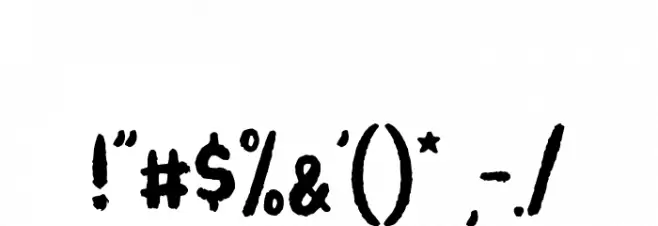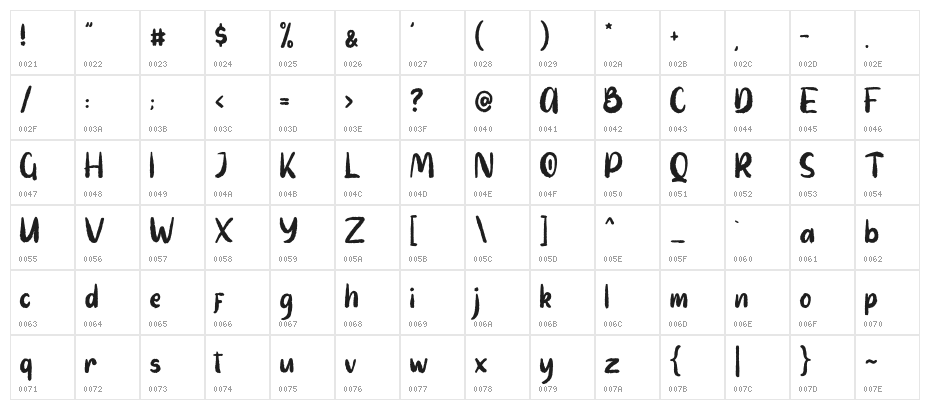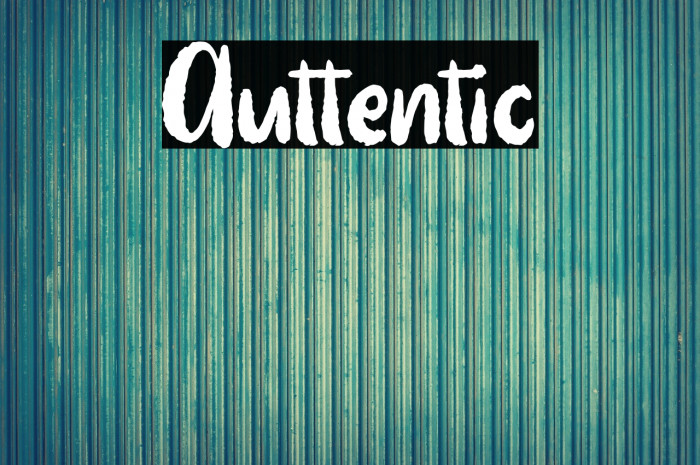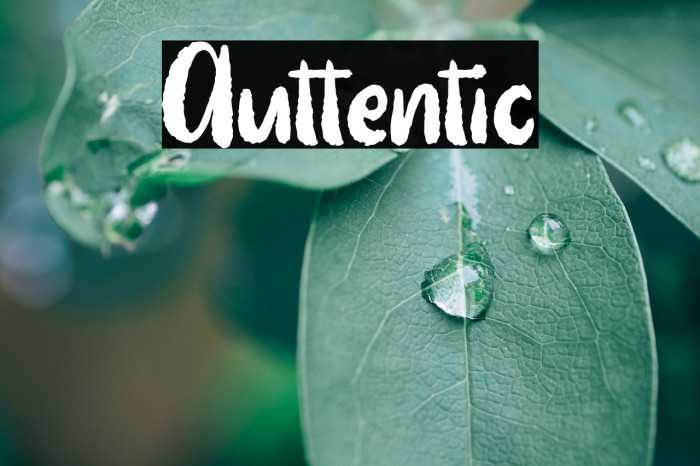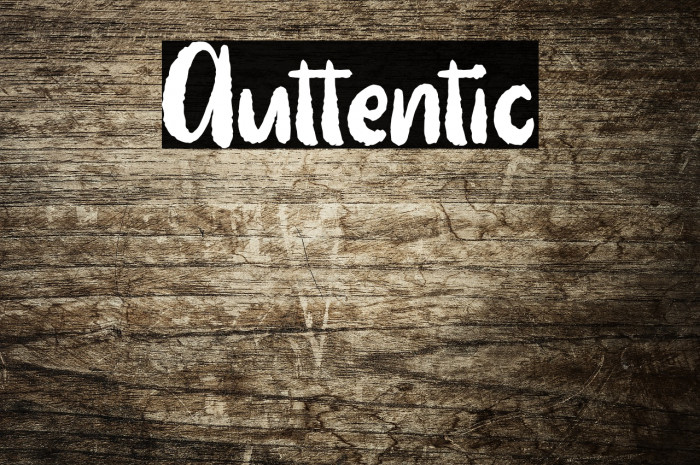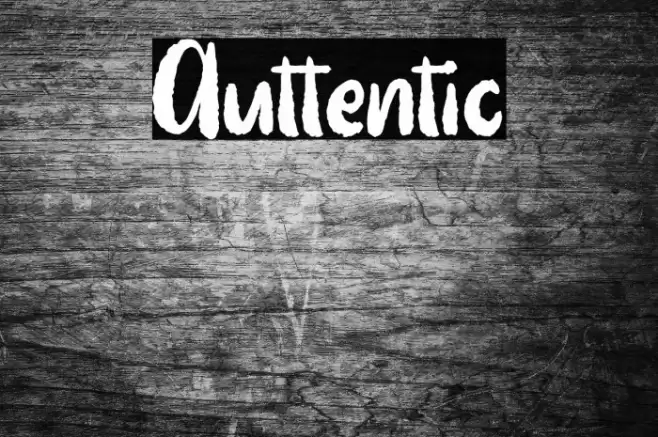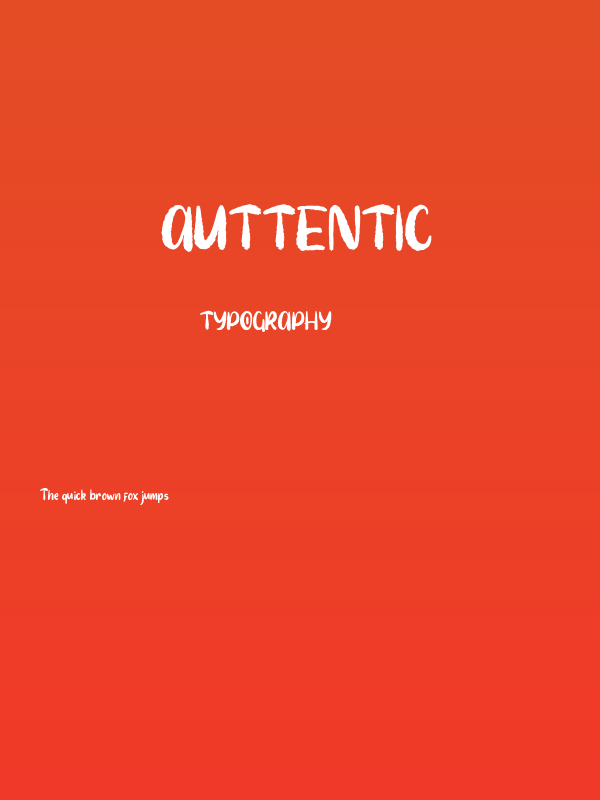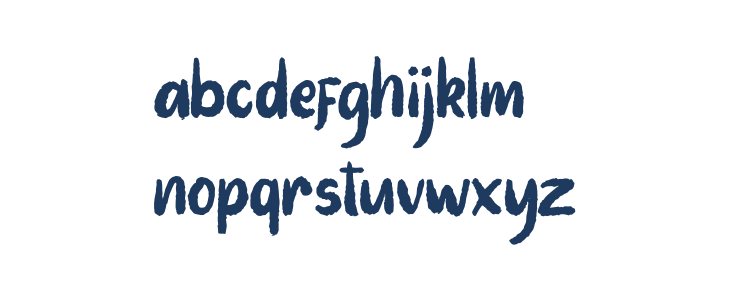
Auttentic Font
Auttentic Description
This font exudes a playful and energetic vibe, characterized by its bold, hand-drawn appearance. The letters are crafted with a brush-like texture, giving them a dynamic and lively feel. The uppercase and lowercase letters maintain a consistent style, with slightly irregular edges that add to the handcrafted aesthetic. The numbers and special characters are equally expressive, complementing the overall design. This font is perfect for projects that require a personal touch, such as invitations, posters, or branding materials that aim to convey creativity and warmth.
| Proposed Projects | Ideal for invitations, posters, branding materials, and creative projects. |